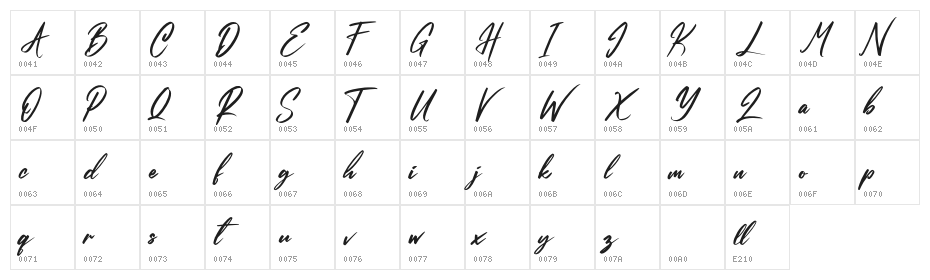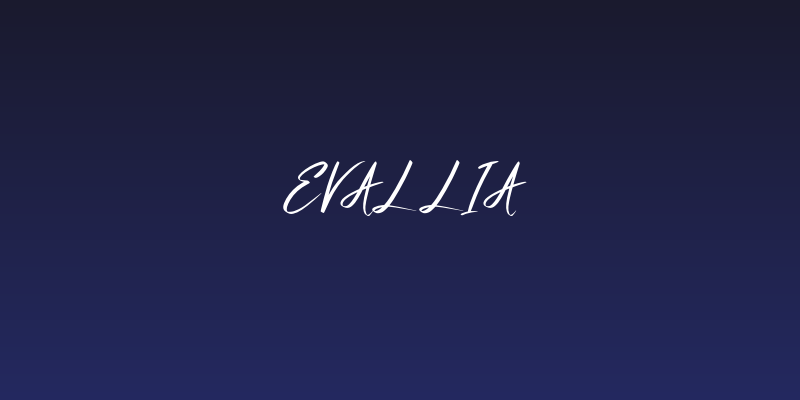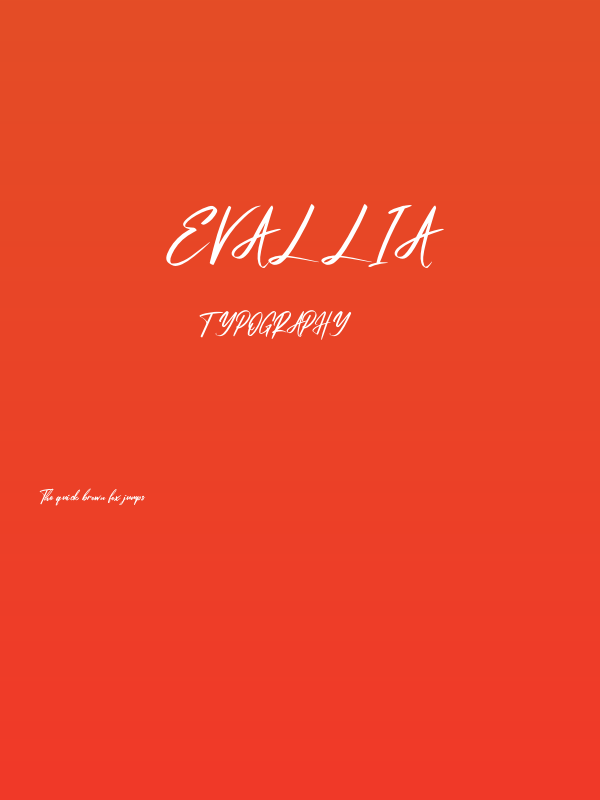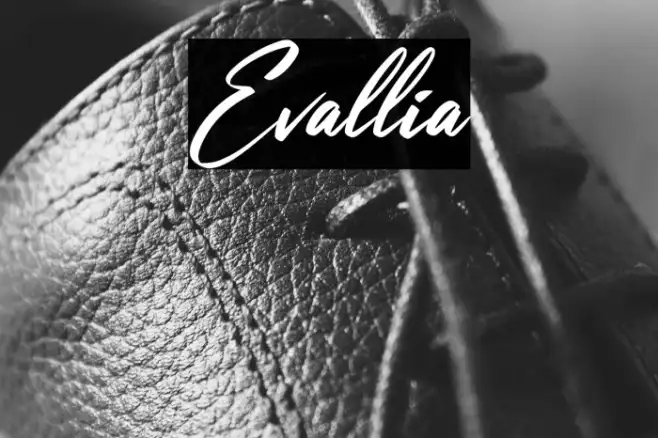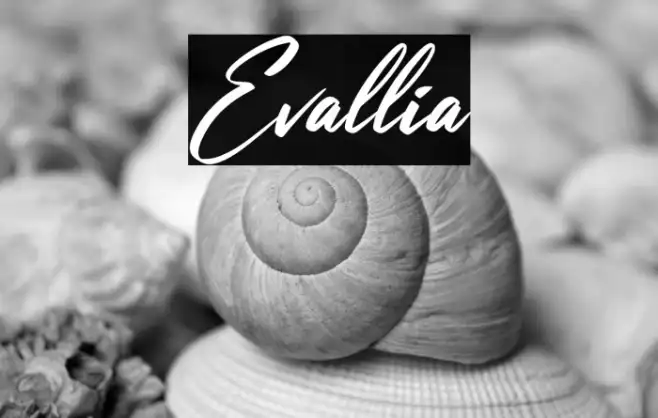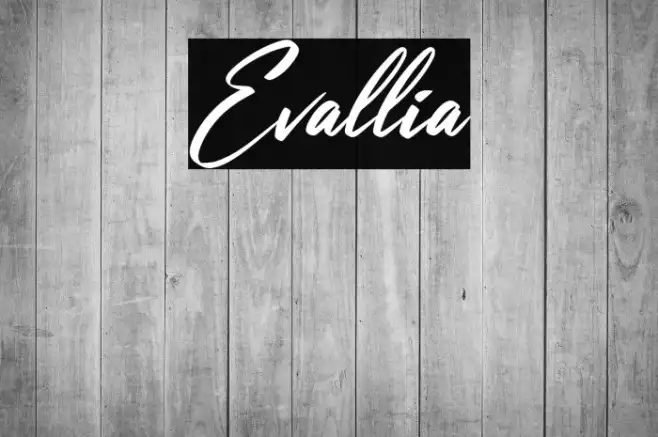
Evallia Font
Evallia Description
This font features a dynamic and elegant script style, characterized by flowing, interconnected letters that convey a sense of movement and sophistication. The uppercase letters are bold and sweeping, with dramatic flourishes that add a touch of flair. The lowercase letters maintain a consistent rhythm, with smooth curves and a slight slant that enhances readability while preserving the font's artistic appeal. The overall design is balanced, with moderate contrast between thick and thin strokes, giving it a refined yet approachable look. This font is versatile, suitable for a range of creative projects where a personal, handwritten touch is desired.
| Proposed Projects | Ideal for wedding invitations, branding, greeting cards, and elegant packaging designs. |